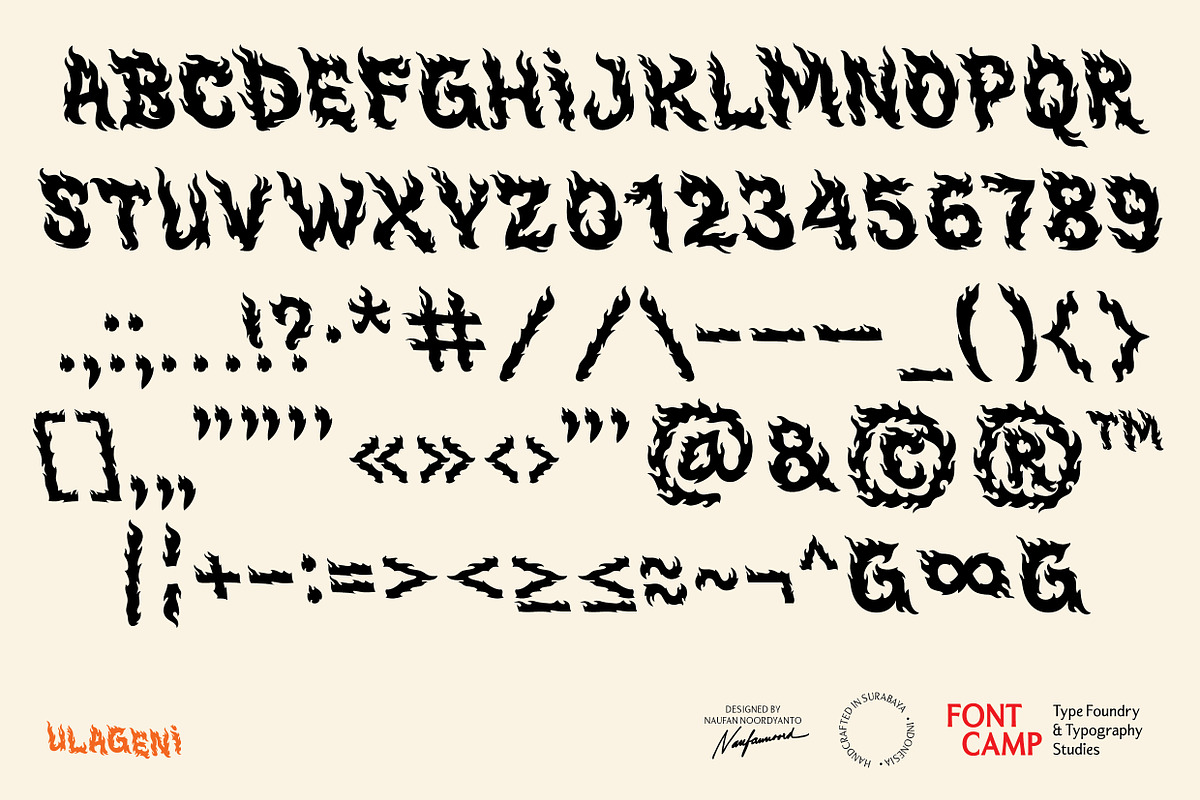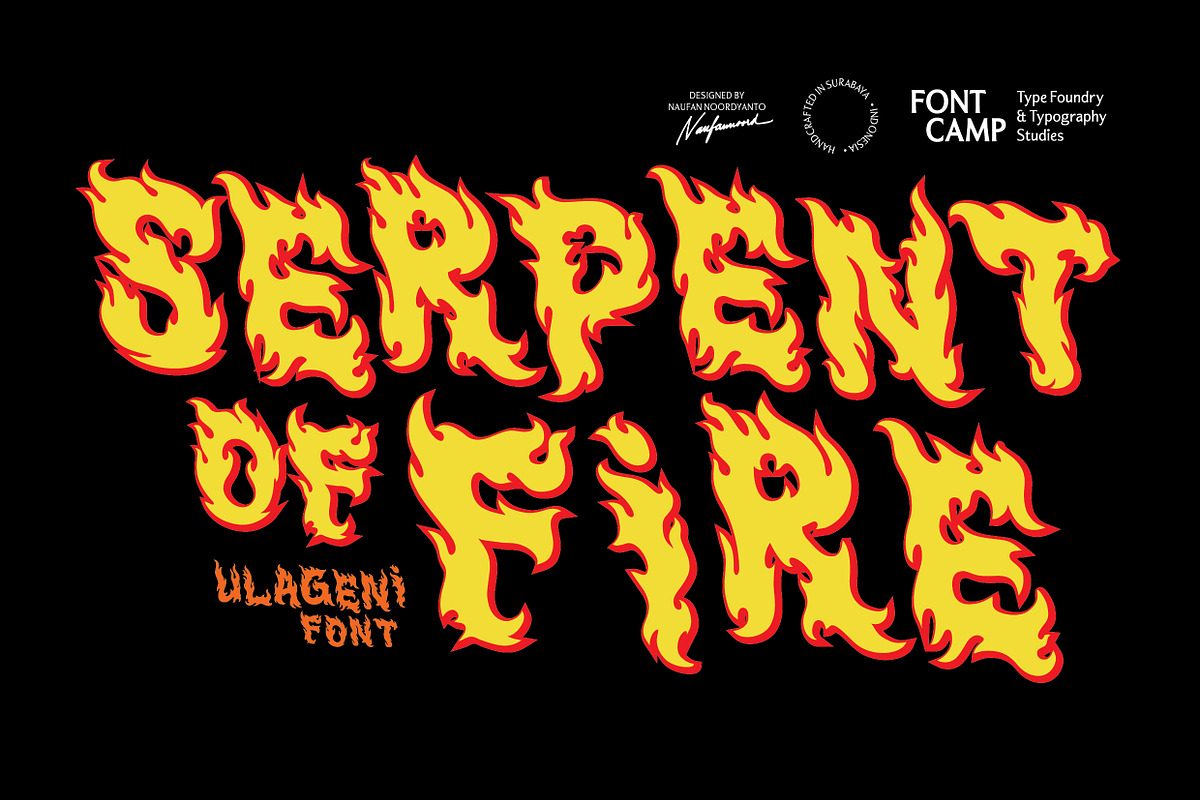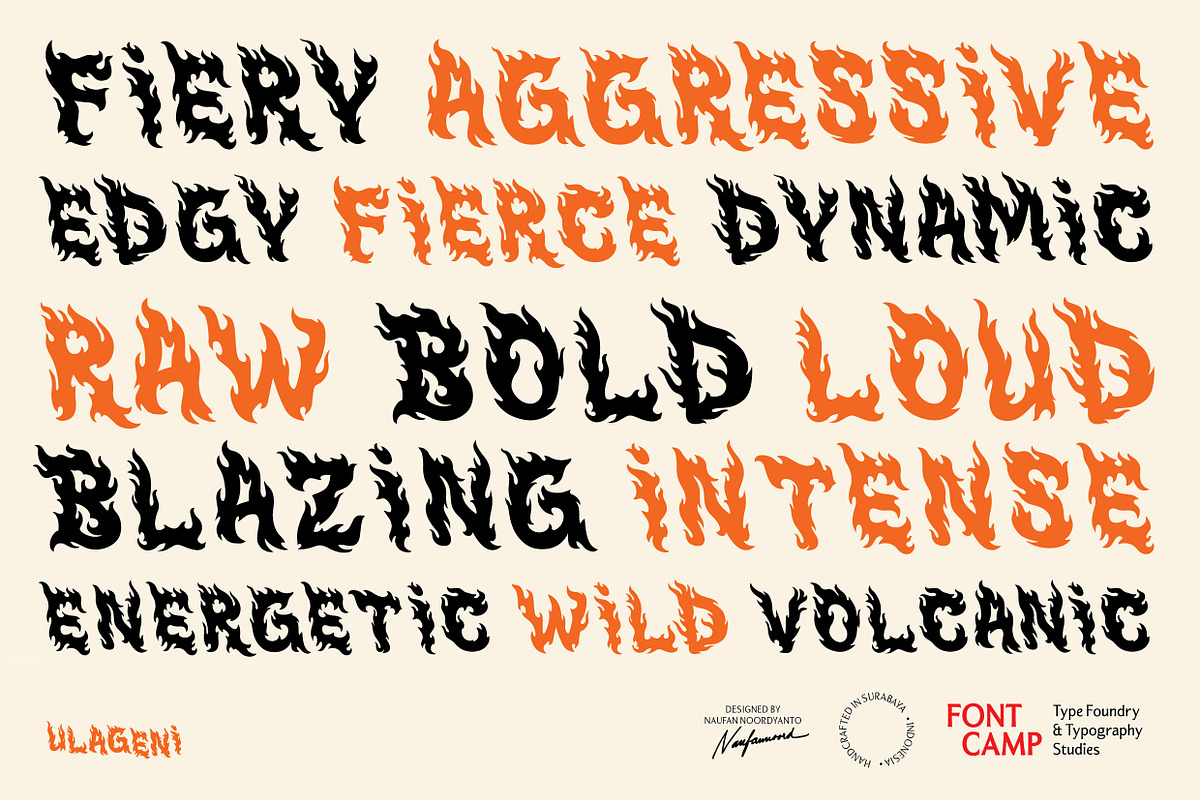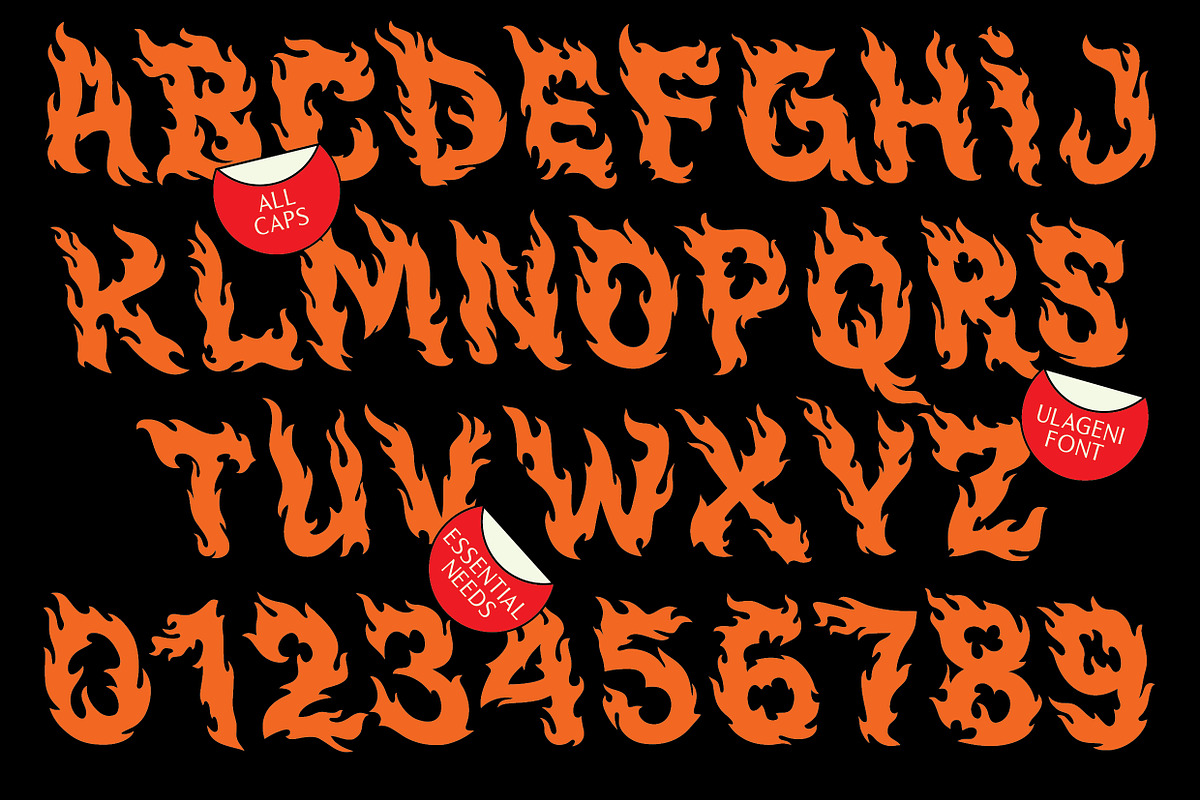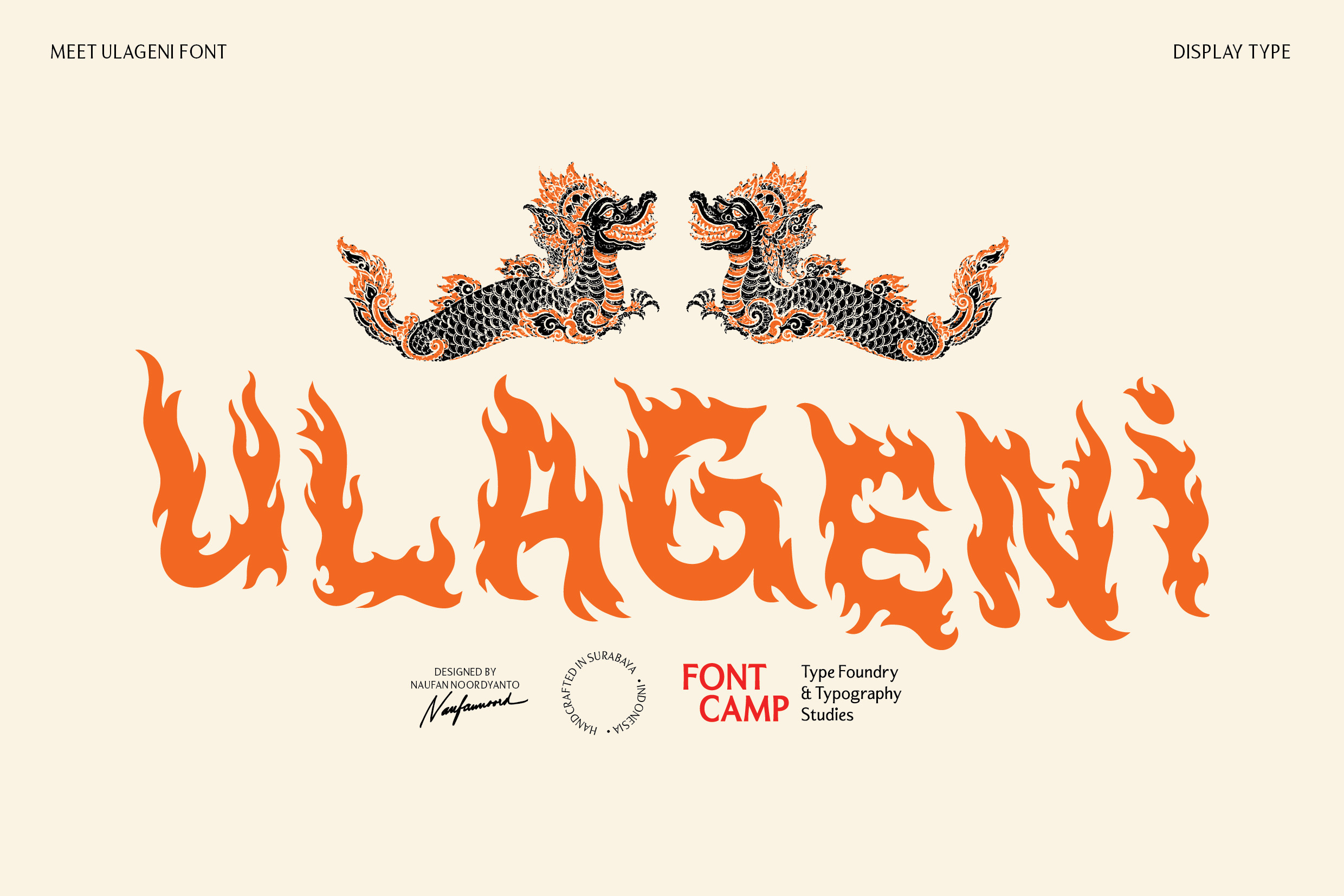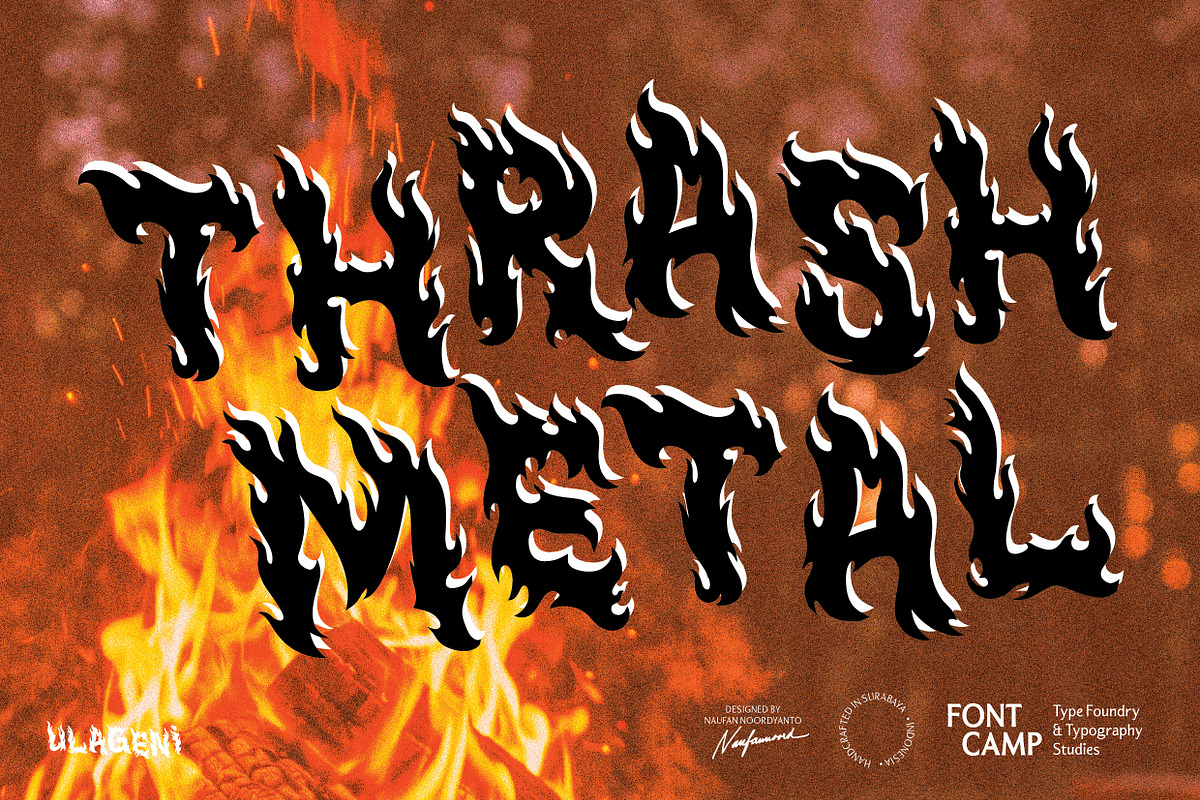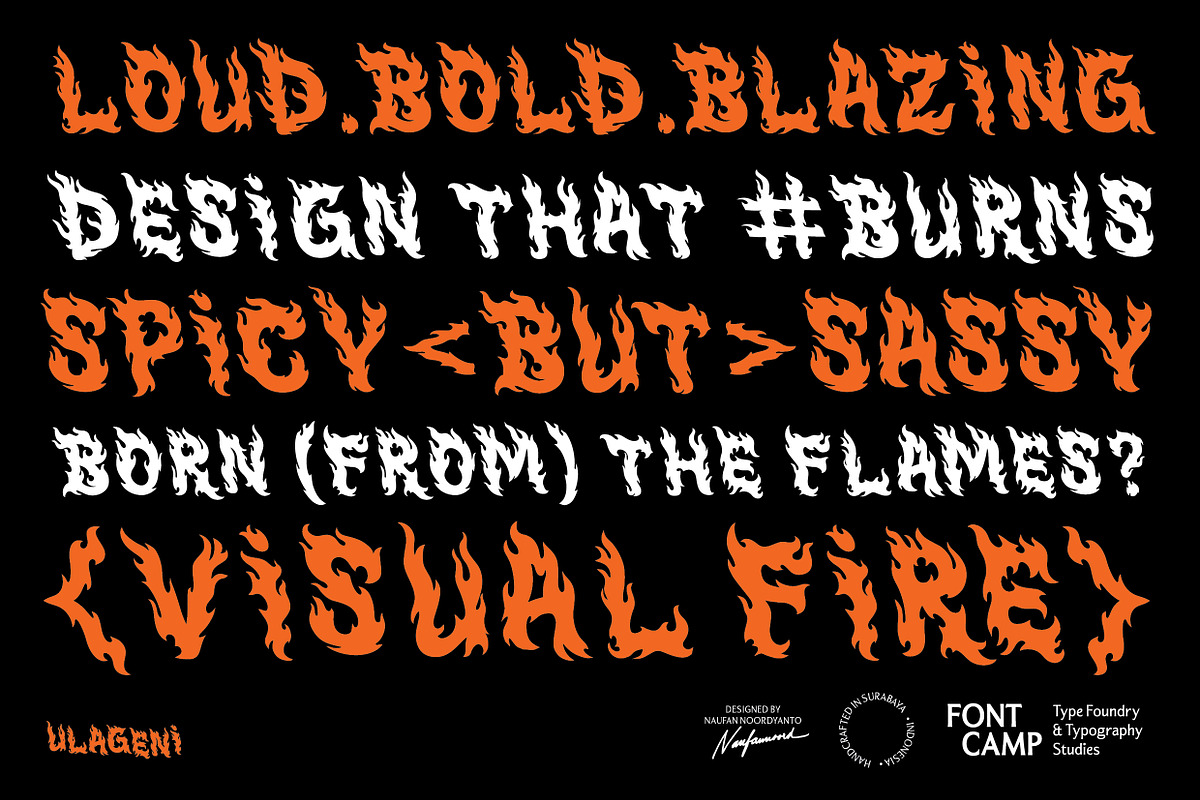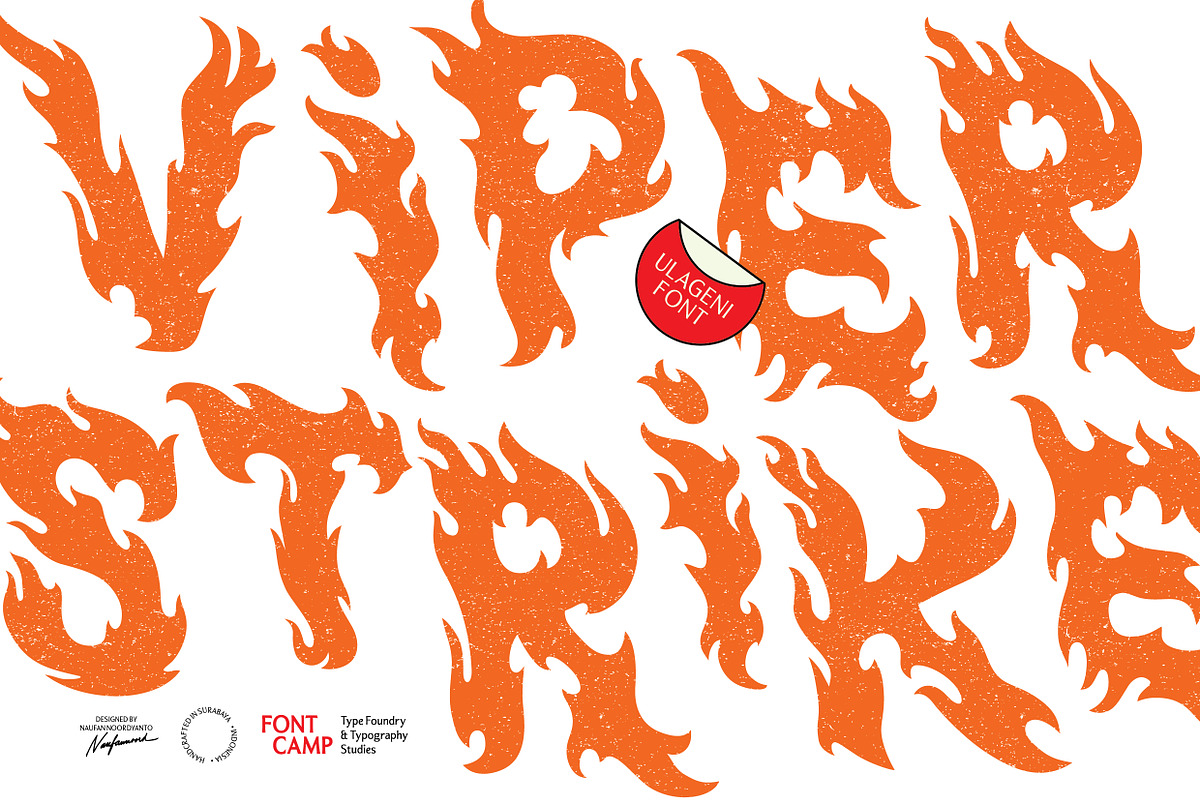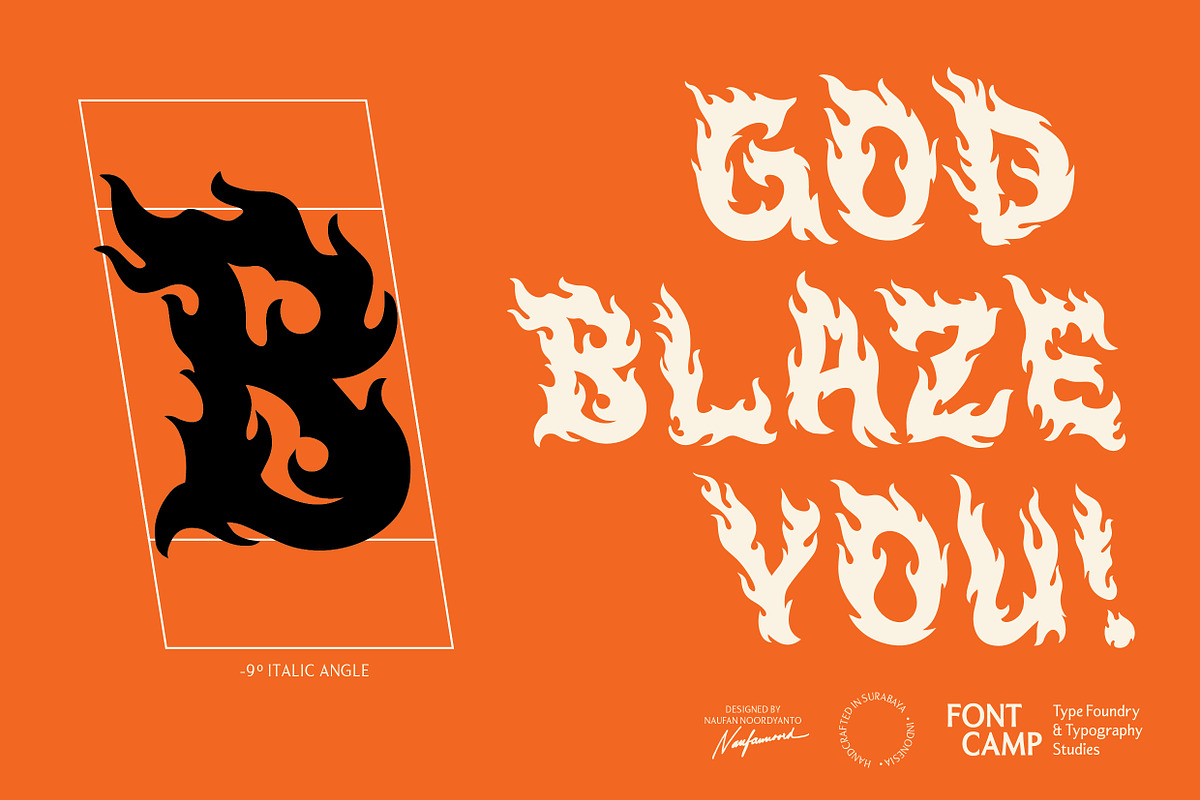
Ulageni Font (Serpent of Fire)
Introducing the "ULAGENI" Font.
DESCRIPTION
Ulageni, meaning "blazing fire" or "serpent of fire" in Javanese, is a highly expressive, intense, and high-energy display typeface defined by its sharp, sinuous, and aggressively fiery letterforms. Its most prominent feature is a flickering outline and a fluid yet razor-sharp structure, giving the text a feeling of powerful energy, untamed attitude, and awe-inspiring danger, mimicking a roaring blaze and a striking serpent-like aesthetic.
The letterforms are naturally bold and heavy with a complete reliance on uppercase structures, allowing for tight, high-impact text layouts that maintain a commanding, striking, and loud presence. An authentic, organic touch shines through its variable flame-like weights and subtle, hand-drawn imperfections at the terminals of each letter, cleverly mimic the hollows of a flickering blaze. The unique curves, smoke-like tendrils, and confident horizontal strokes create a personal, aggressive, and highly artistic aesthetic.
This lively, chaotic, and energetic structure makes Ulageni an ideal choice for heavy metal album covers, eye-catching poster headlines, street culture and streetwear merchandise branding, music logotypes, or any creative design that embraces a raw, loud, and attention-grabbing indie vibe.
TECHNICAL SPECIFICATIONS & CAPABILITIES
Essential character library: engineered with 117 meticulously crafted glyphs, providing full coverage for high-impact displays, numerals, and essential punctuation across a single definitive style (Regular).
Commanding All-Caps design: specially structured as an All-Caps typeface optimized for loud, attention-grabbing headlines, bold logotypes, and tactical display layouts where maximum attitude is required.
Global linguistic support: built with a streamlined character set to ensure seamless compatibility, supporting core diacritics and necessary special symbols for essential typographic layouts.